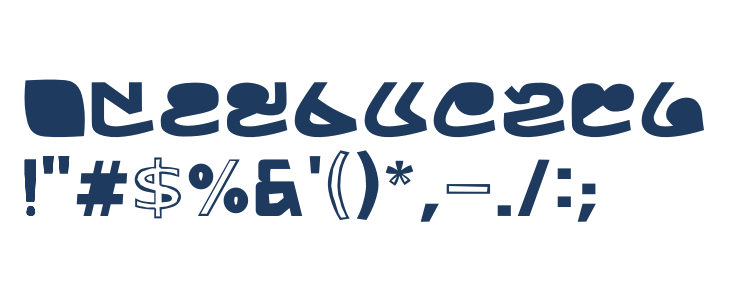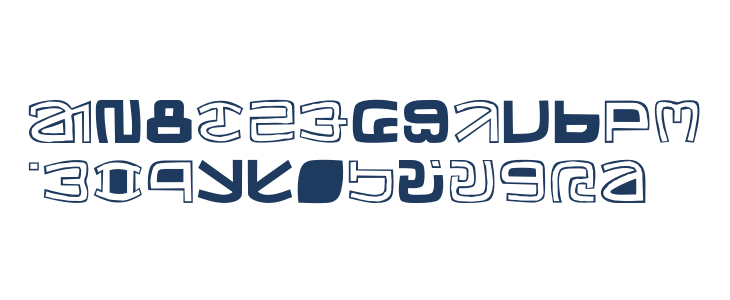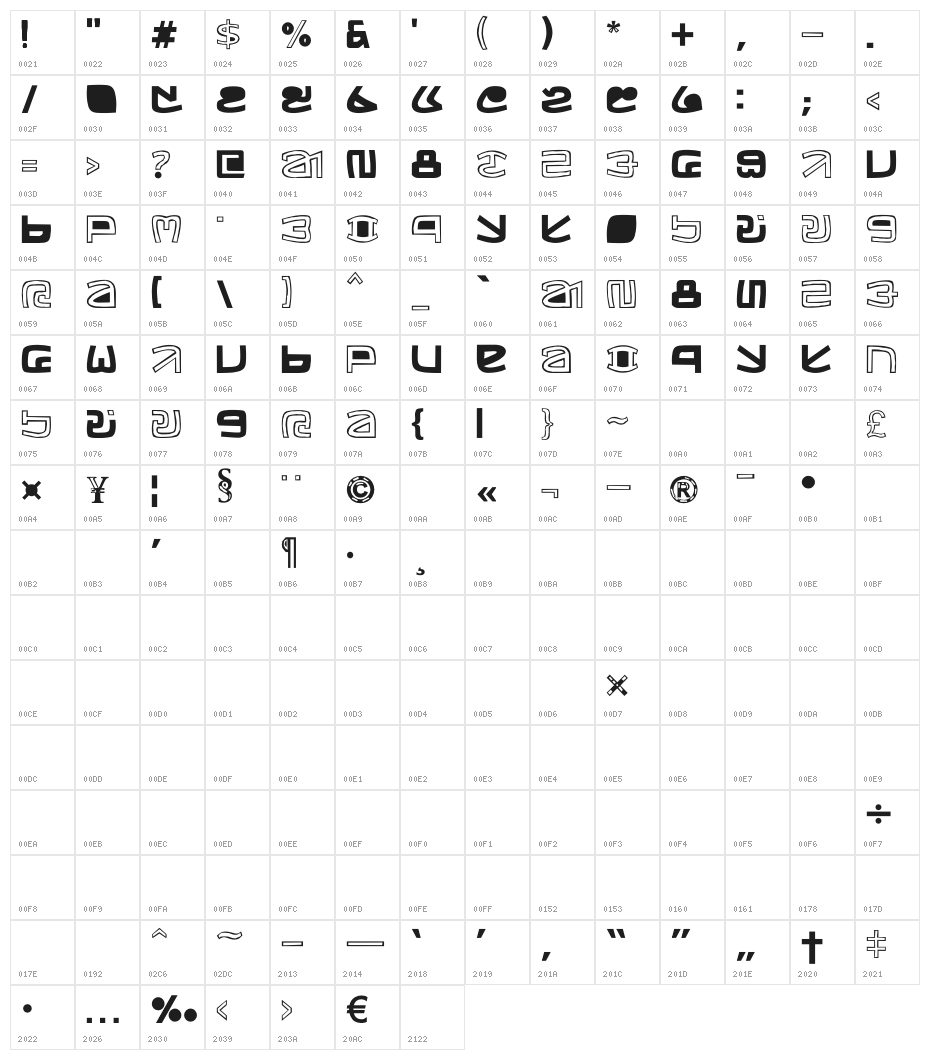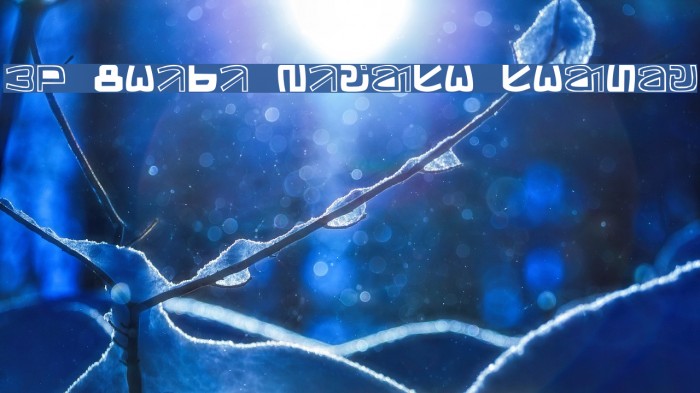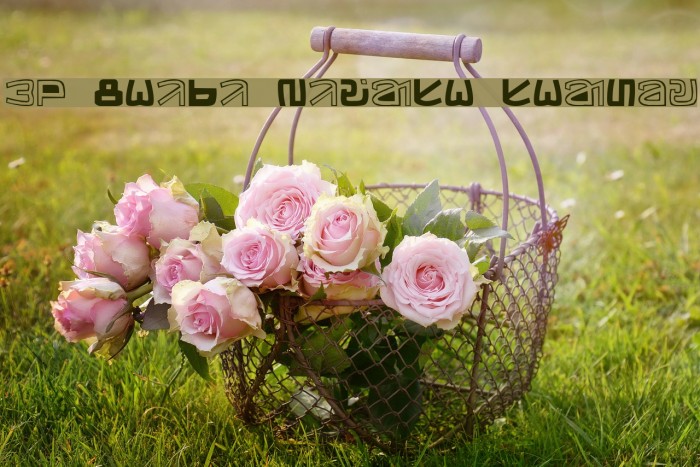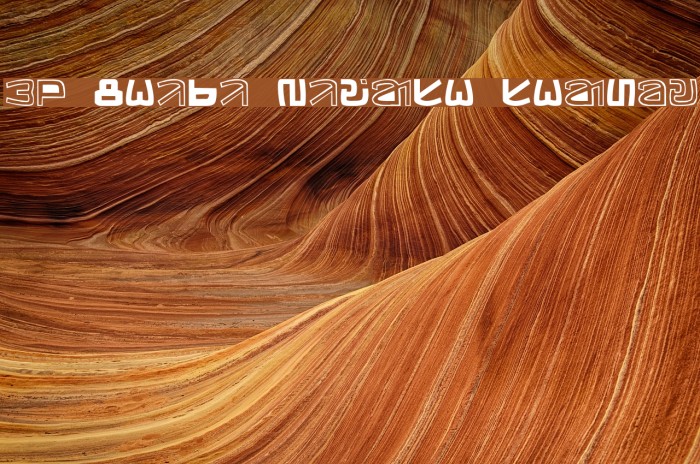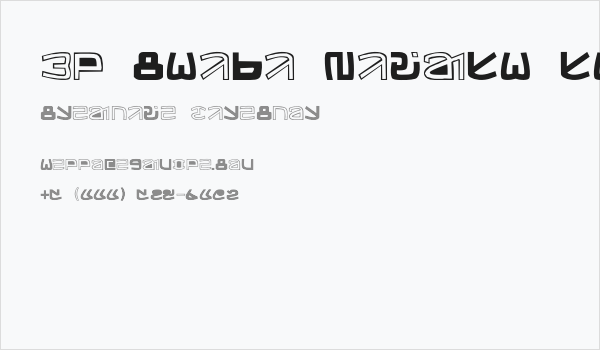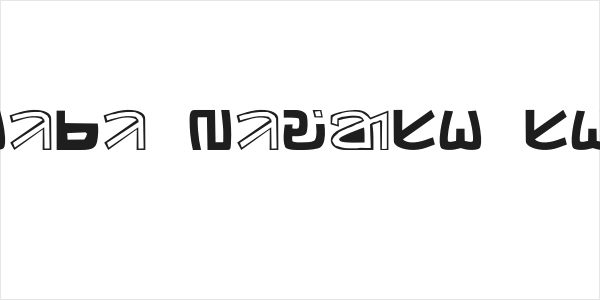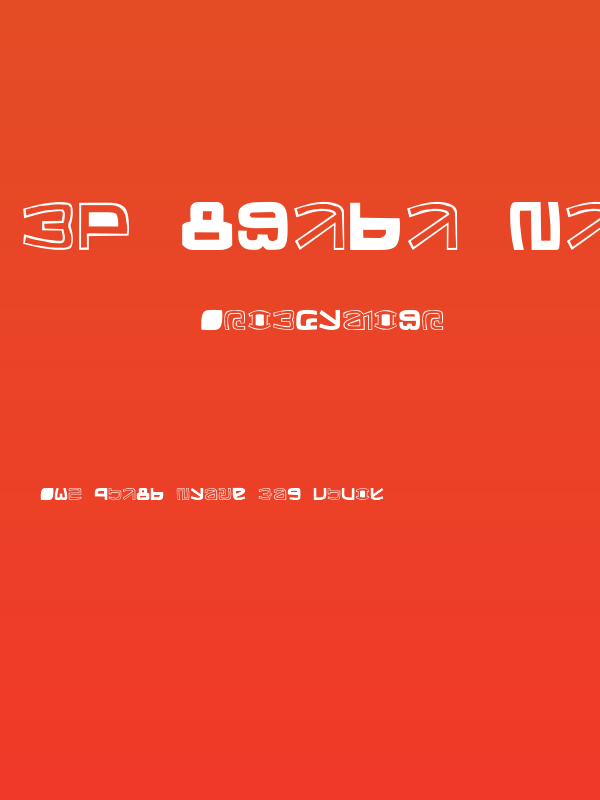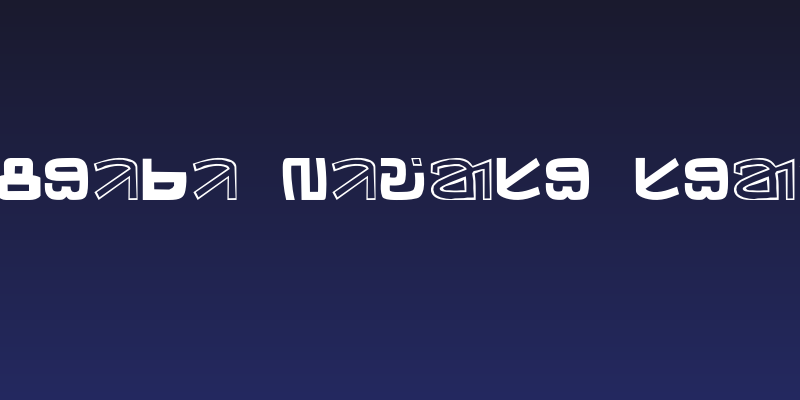
Ol Chiki Bivash Shadow Font
Ol Chiki Bivash Shadow Description
This font features a bold and shadowed design that gives each character a three-dimensional appearance. The letters are uniquely stylized with a combination of thick and thin lines, creating a dynamic visual effect. The shadowing adds depth, making the characters stand out prominently. The overall design is quite decorative, with a modern twist that incorporates elements of traditional script styles. The font maintains a consistent height across all characters, ensuring uniformity while allowing for creative expression through its intricate detailing.
Proposed ProjectsIdeal for use in graphic design projects, posters, and branding materials where a striking and modern look is desired.